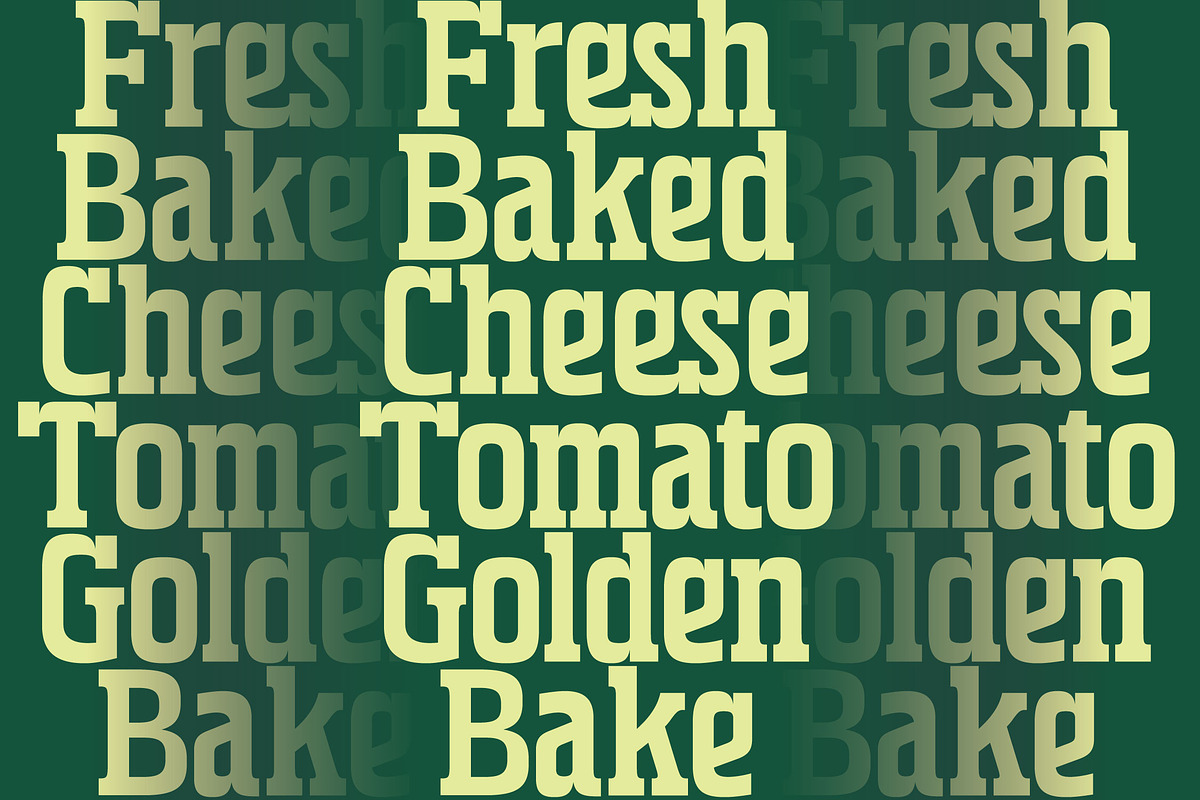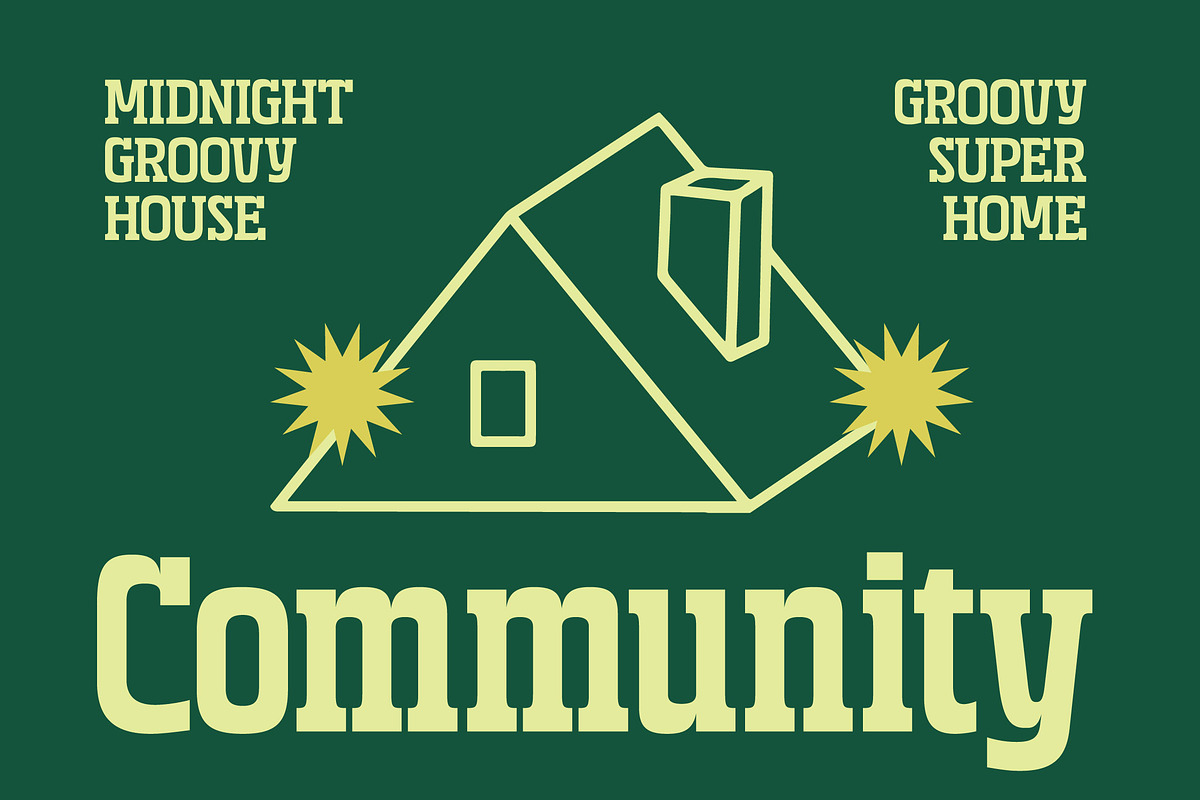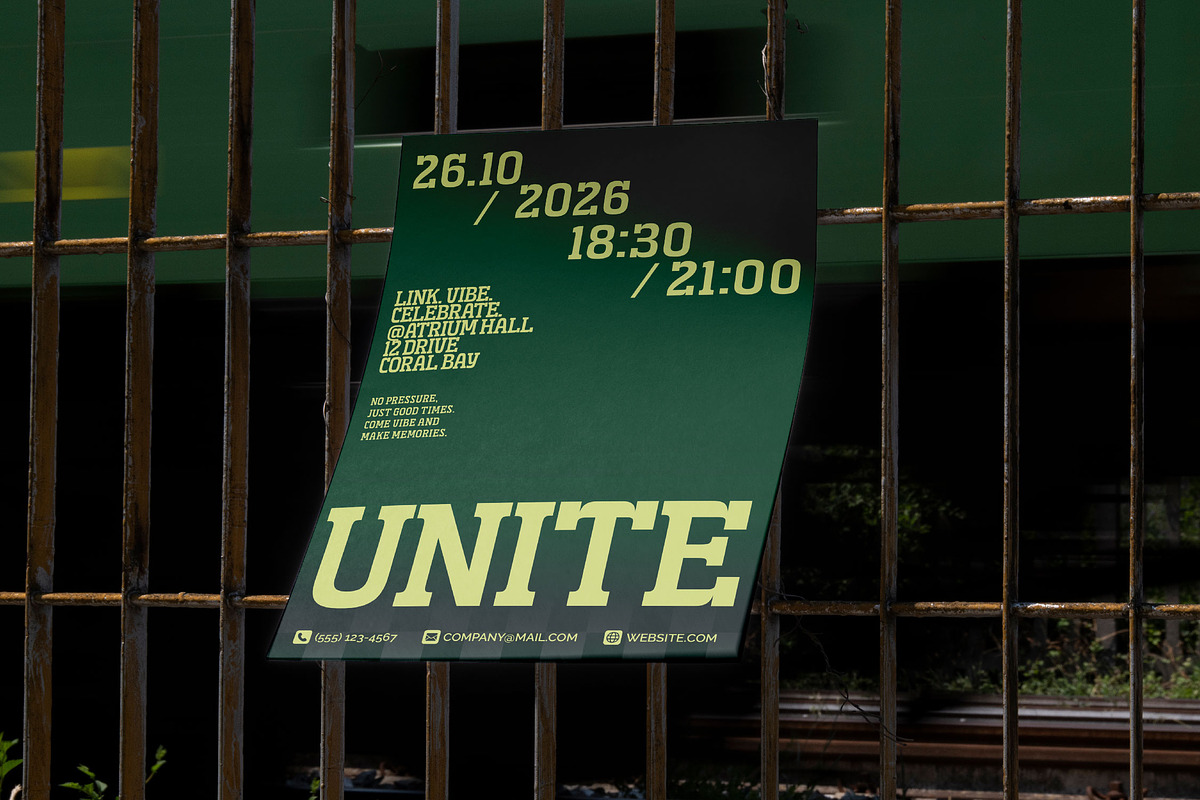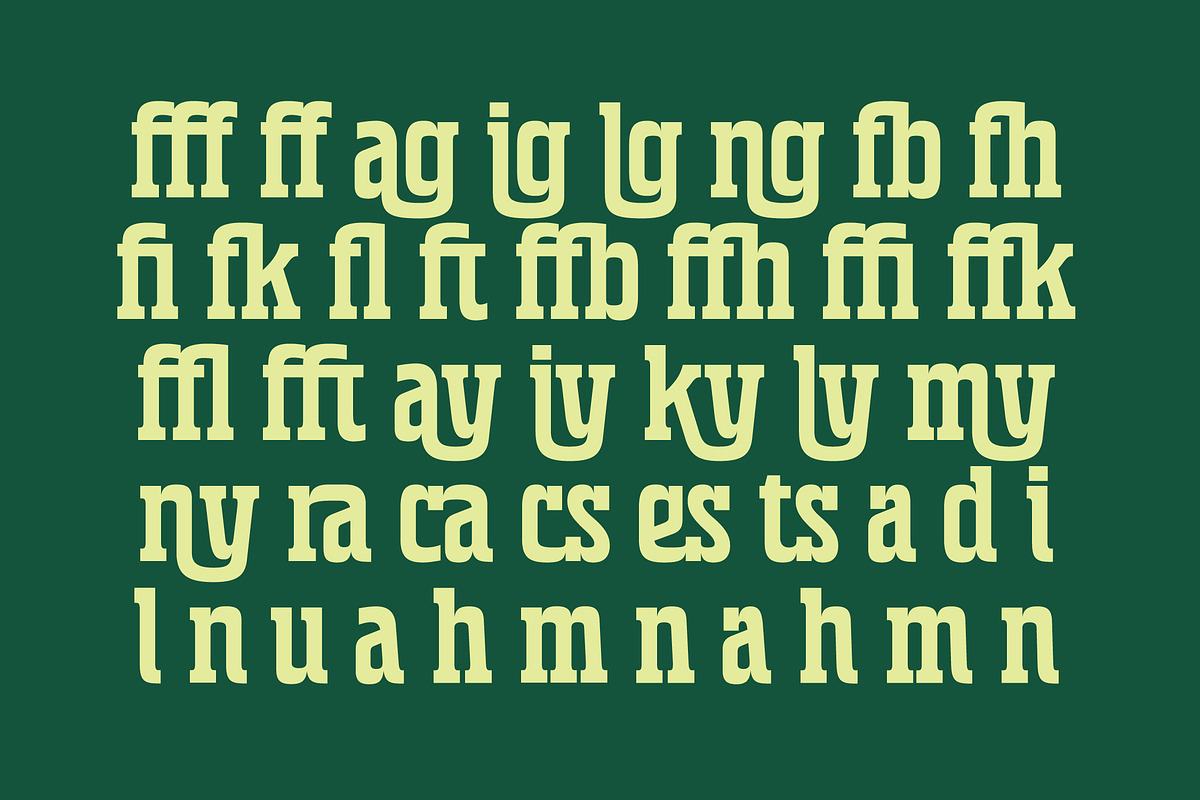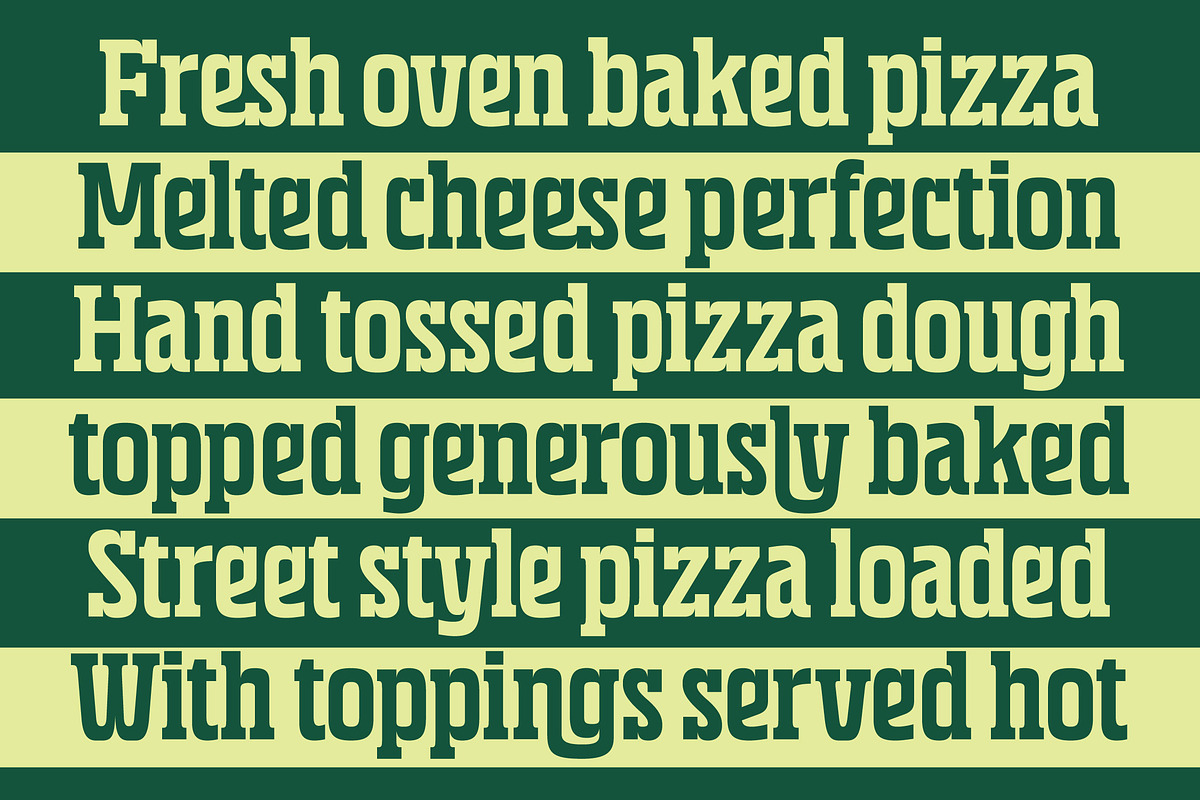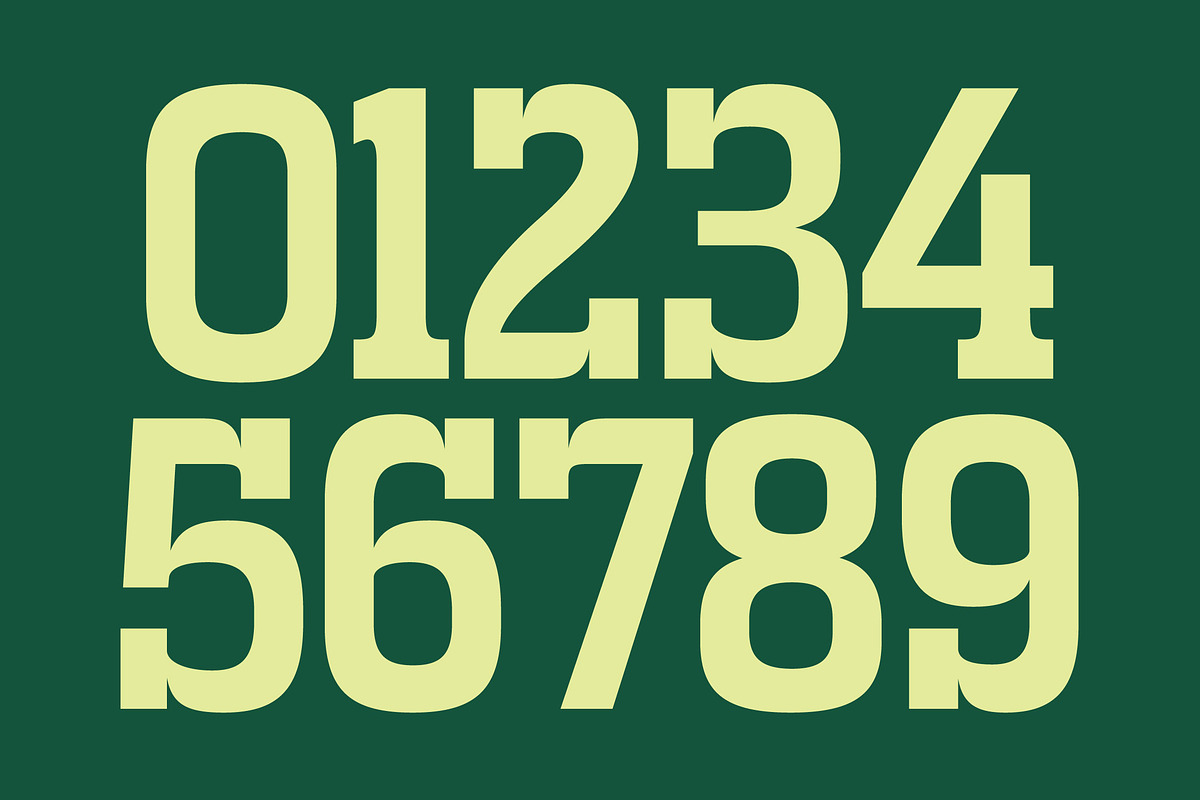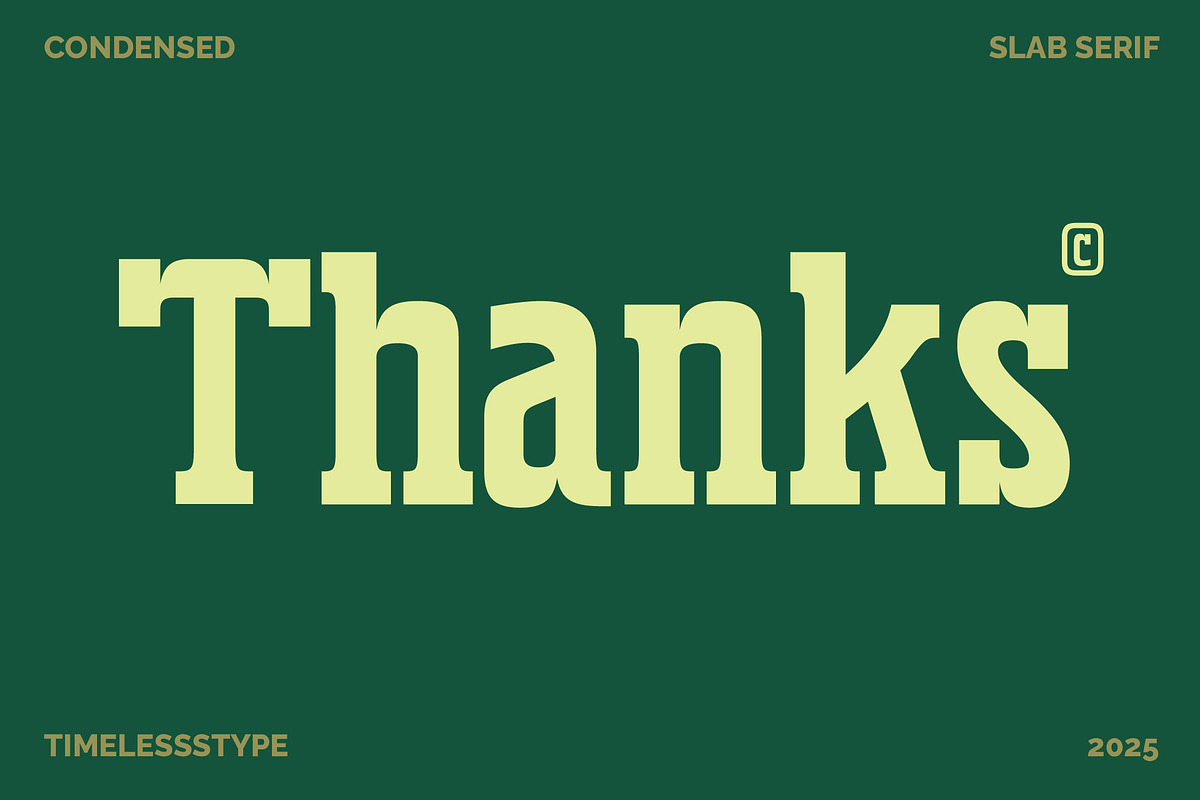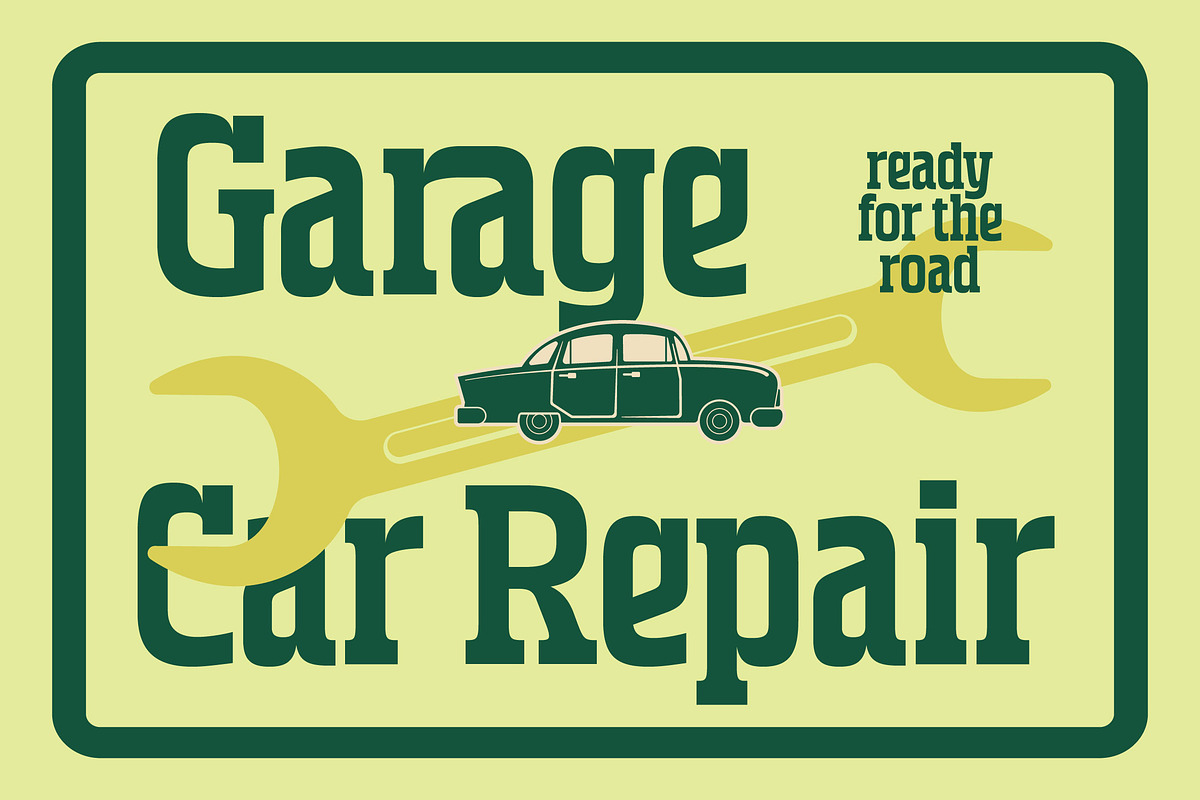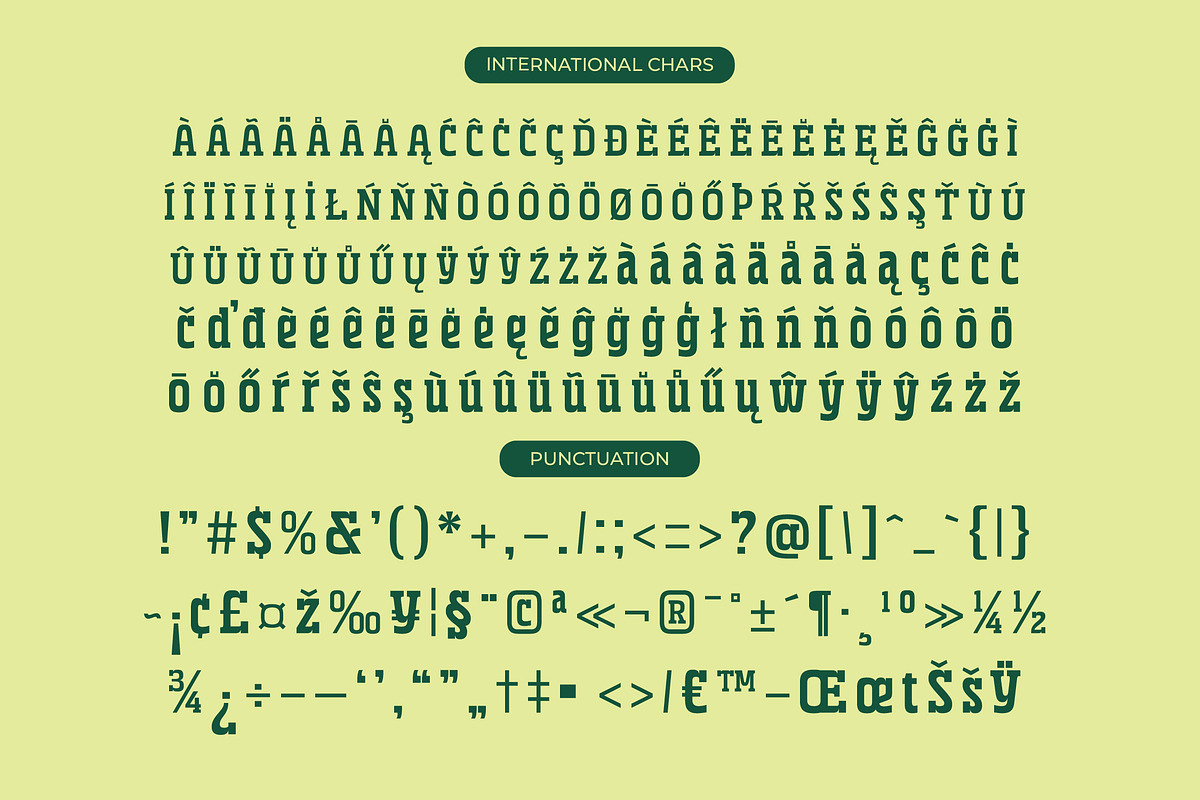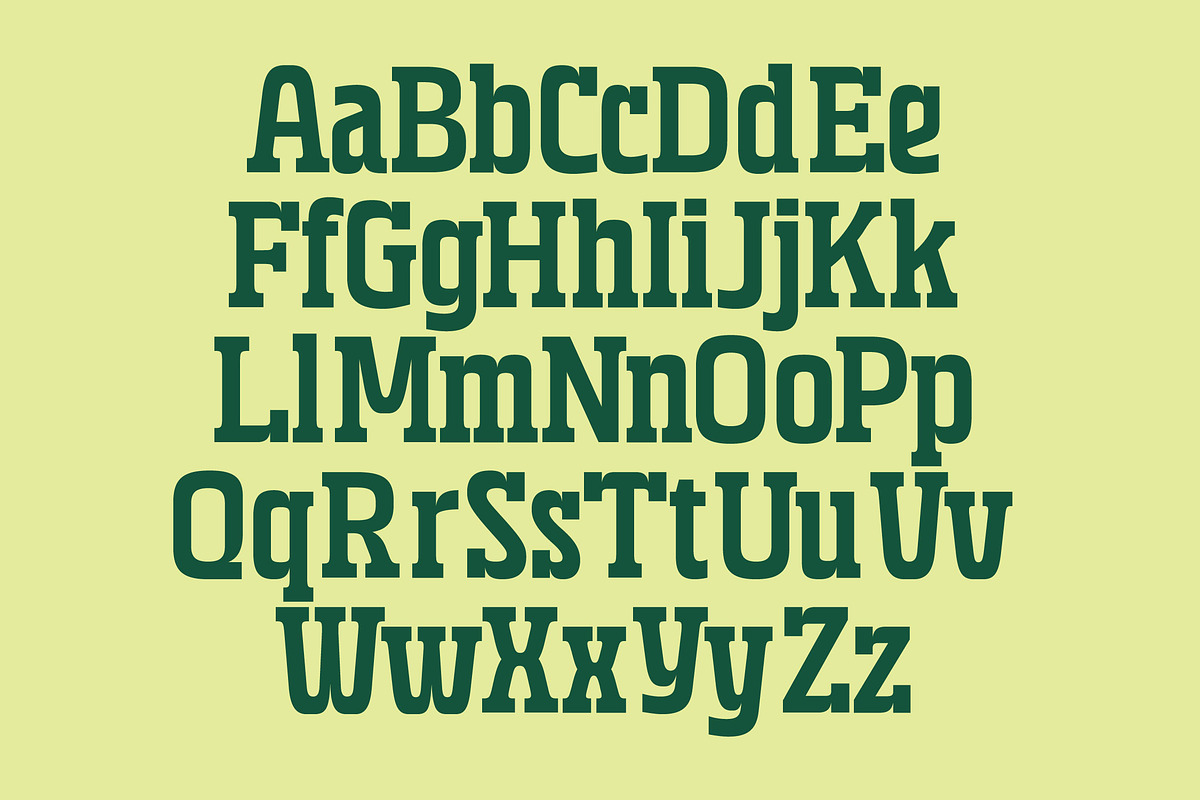
Grafik Bold Condensed Slab Serif
Grafik is a masterclass in visual strength, offering a commanding presence that transforms any blank canvas into a bold statement of intent. It captures the essence of classic craftsmanship while speaking a visual language that is entirely contemporary.
Inspired by the architectural rigidity of industrial-age signage and the refined elegance of mid-century editorial layouts, this typeface bridges the gap between raw power and sophisticated design. It evokes an atmosphere of timeless reliability, reminiscent of heritage labels and premium boutique identities.
This modern serif display delivers a massive branding impact through its unique condensed structure and heavy slab characteristics. As a luxury typography solution, it functions as a high-contrast serif that balances thick strokes with precise curves, making it the ultimate editorial font for those who demand professional attention.
Tapping into the current modern serif trend, this typeface aligns perfectly with the shift toward character-driven typography that prioritizes uniqueness over uniformity. It stands out among standard editorial display fonts by offering a rhythmic verticality that is both stylish and authoritative.
Designers will find it indispensable for logo design and high-impact branding projects where a strong identity is required. Whether it is used for bold packaging, sophisticated editorial spreads, high-end fashion lookbooks, or even a modern wedding suite, its versatility ensures a premium feel across all mediums.
The font includes an extensive collection of unique ligatures, creative alternates, and decorative swashes to help you customize your headlines. With full multilingual support and a comprehensive set of international characters, it is ready for global projects without compromising on style.
Numerals
Punctuations (OpenType Standard)
Accents (Multilingual Characters)
Ligatures and Alternative Style Stylistic Set